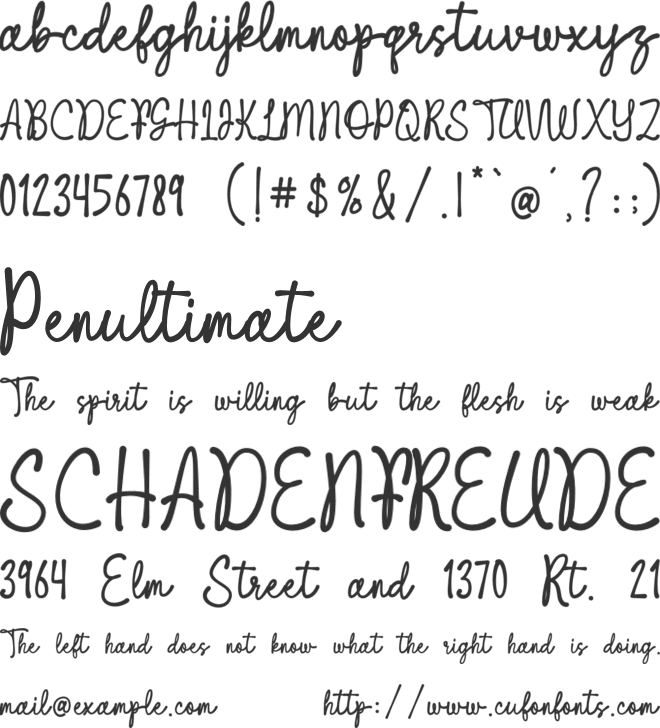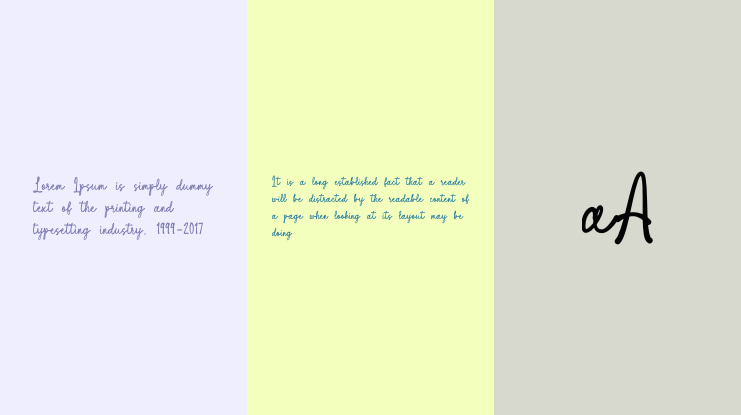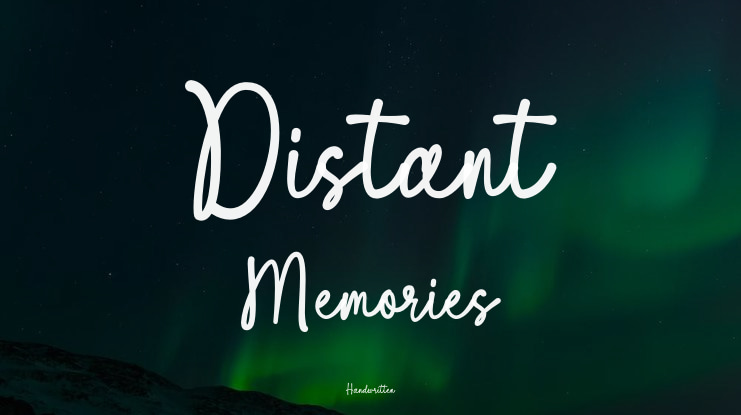
Distant Memories Font
Distant Memories is a beautifully crafted handwritten script font designed to bring elegance, warmth, and personality into your creative projects. With its flowing curves and natural strokes, this font captures the charm of authentic handwriting while keeping an aesthetic and modern appeal.